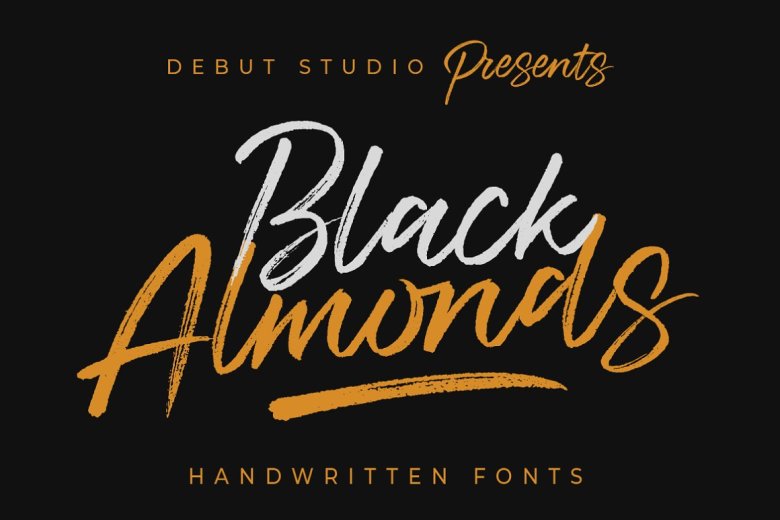
Black Almonds Font
Black Almonds FontThis is a brush script font, designed and shared by Debut Studio. With a handmade and brush font or combined will make your design project more beautiful. Fit for all your professional project branding. Best for logos, branding and quotes.
Black Almonds Brush Script Font